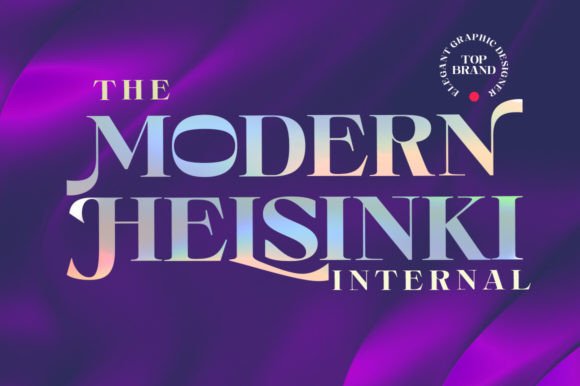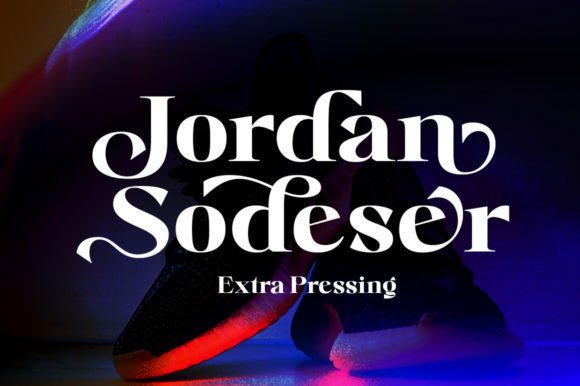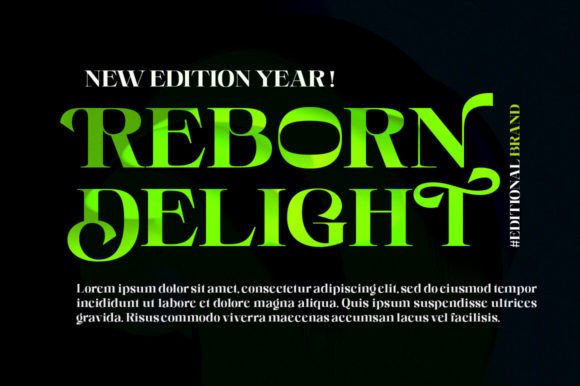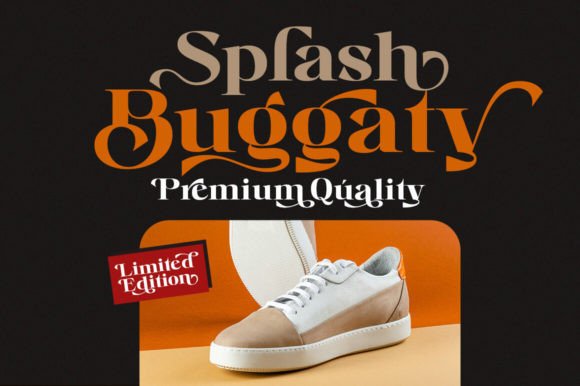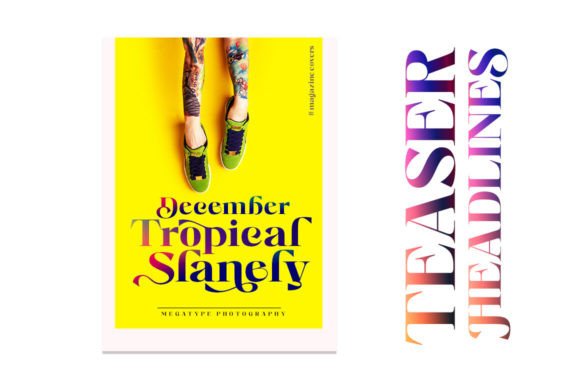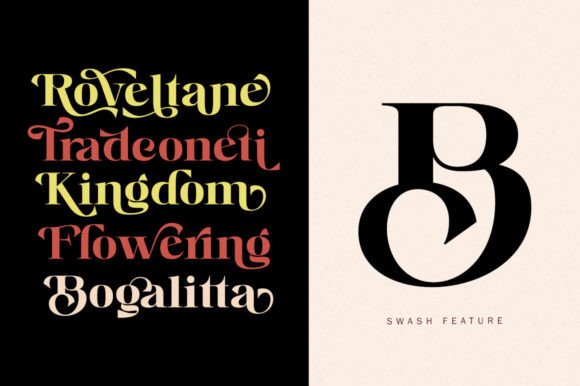
Brokline Font: Elevate Your Designs with a Modern Serif Display Font
Are you looking for a font that can add a touch of modernity, class, and fun to your design projects? Look no further than Brokline, a versatile serif display font that is perfect for a wide range of applications. In this article, we’ll take a closer look at the features and benefits of Brokline, and explore how it can help take your designs to the next level.
A Modern, Classy, and Fun Font
Brokline is a serif display font that boasts a unique and modern style, making it perfect for designers who want to create eye-catching and memorable designs. Its classy and sophisticated look makes it ideal for high-end branding projects, while its fun and playful vibe ensures that it’s also suitable for more creative and artistic endeavors.
One of the standout features of Brokline is its versatility. This font looks great at display size, making it perfect for headlines, titles, and other large-format text. However, it’s also easy to read at text size, making it suitable for body copy and other smaller text applications.
Unique Alternatives and Ligatures
Brokline is more than just a font – it’s a comprehensive design tool that offers a wide range of unique alternatives and ligatures. With over 500 glyphs, you can create complex and visually interesting designs that will set your work apart from the crowd.
The font’s ligatures and glyphs are designed to add an extra layer of creativity and sophistication to your designs. Whether you’re looking to create custom logos, social media posts, or product packaging, Brokline’s extensive character set has got you covered.
Brokline is a versatile font that can be used for a wide range of design projects. Here are just a few examples of how you can use this amazing font:
- Branding projects: Use Brokline to create custom logos, business cards, and letterheads that reflect your brand’s personality and style.
- Logos and icons: Create eye-catching logos and icons that will help your brand stand out from the crowd.
- Television shows and movie titles: Use Brokline to create engaging and memorable title sequences that will grab your audience’s attention.
- Wedding designs: Create beautiful and elegant wedding invitations, programs, and decorations with Brokline.
- Social media posts: Use Brokline to create eye-catching social media posts that will help your brand engage with your audience.
- Advertising and product packaging: Use Brokline to create effective and visually appealing advertising campaigns and product packaging that will help your products stand out on store shelves.
Brokline is an amazing serif display font that offers a unique combination of modernity, class, and fun. With its extensive character set, PUA encoding, and versatility, it’s perfect for a wide range of design projects. Whether you’re a designer, crafters, or DIY enthusiast, Brokline is a must-have font that will help you take your designs to the next level.